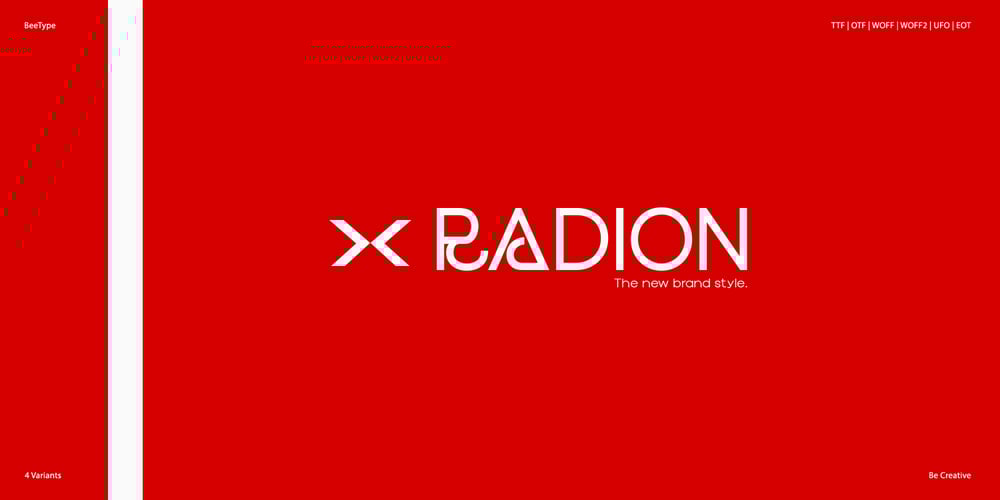
Radion Typeface
Radion Typeface font
Radion Typeface Font Family was designed by Alex Jones and published by BeeType. Radion Typeface contains 4 styles and family package options. Radion is a striking display typeface designed to make a bold impression. With its dynamic geometric shapes and sleek, modern lines, Radion commands attention and enhances visual impact. Ideal for use in headlines, branding, posters, and high-impact advertisements, this font is perfect for projects that require a strong, contemporary look. Whether you’re crafting an eye-catching logo or a standout graphic design, Radion’s distinctive character and versatility will bring your creative vision to life. Radion comes in four distinctive variants: Thin, ExtraLight, Light, and Regular.